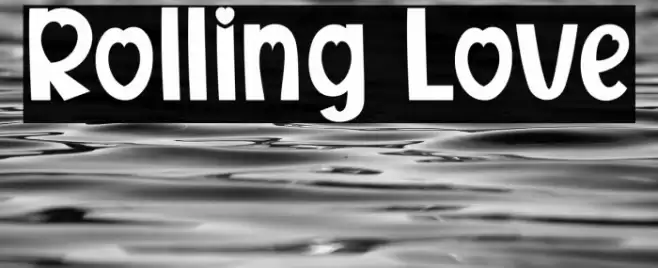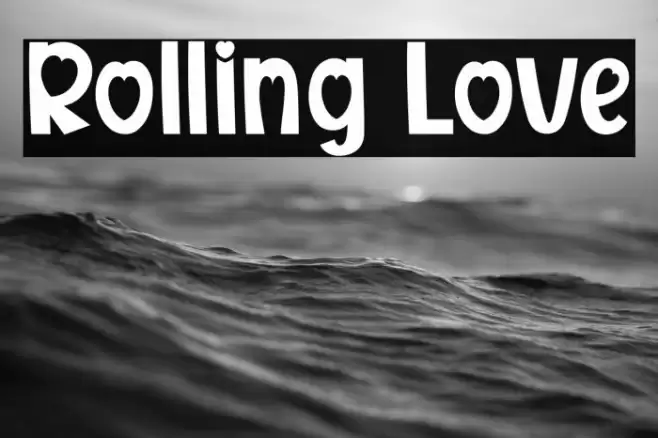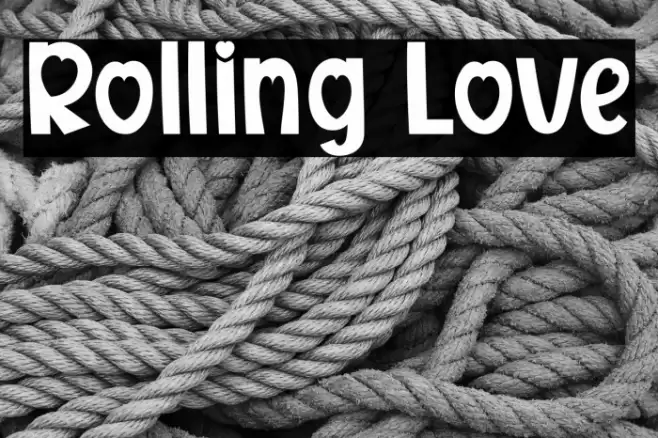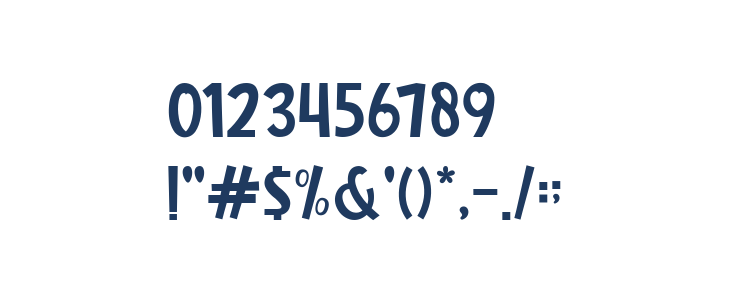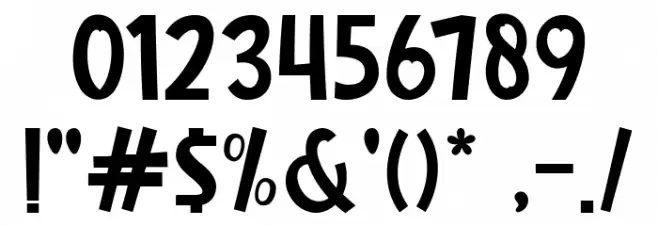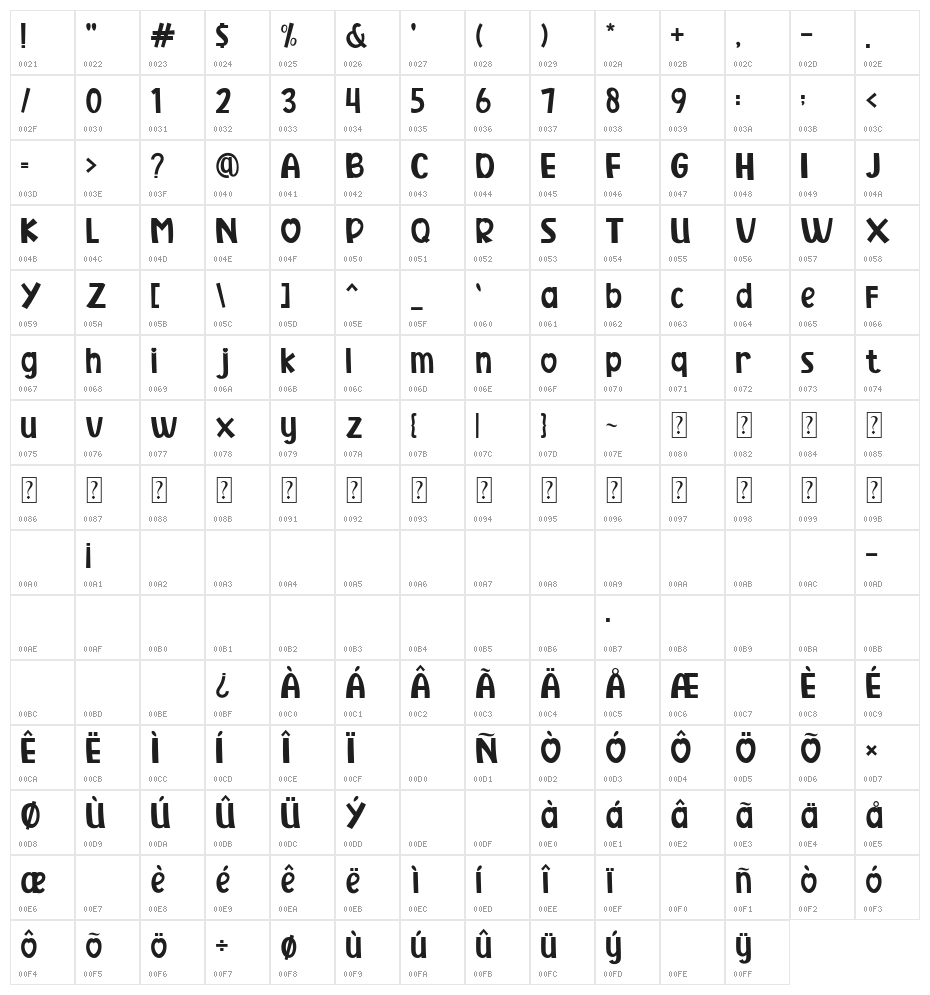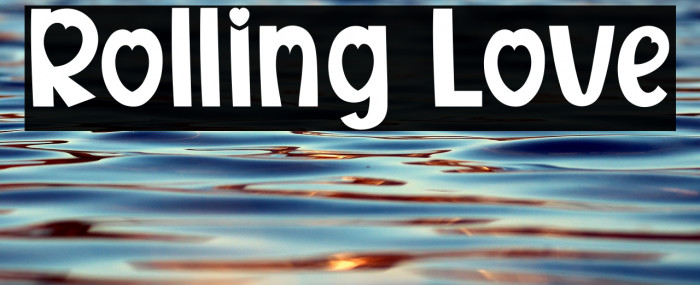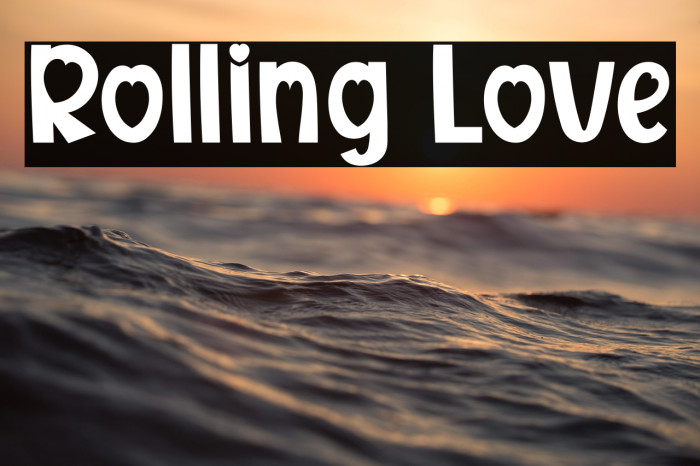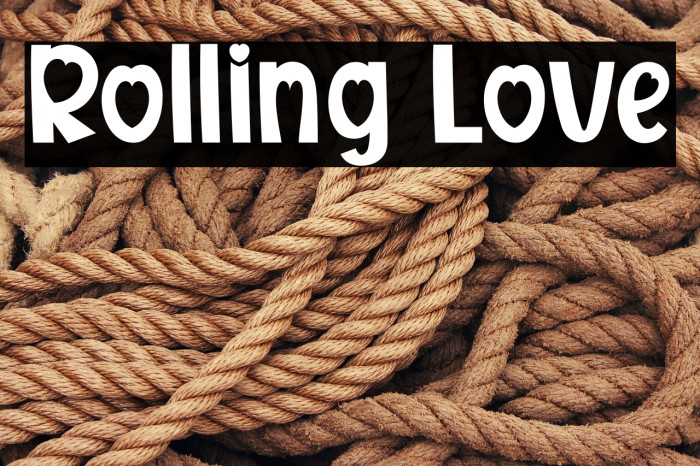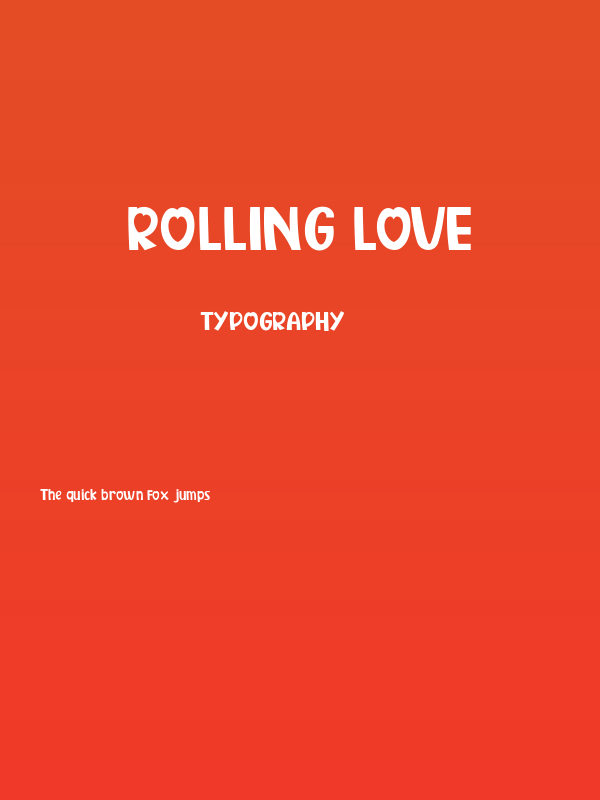
Rolling Love Font
Rolling Love Description
This playful and quirky font features bold, rounded characters with a whimsical touch. The uppercase letters are slightly wider, giving them a strong presence, while the lowercase letters maintain a consistent, friendly appearance. The numerals and special characters are designed to complement the overall style, with a unique flair that adds personality. The font's design is characterized by its smooth curves and slightly irregular shapes, which contribute to its informal and approachable feel. It's perfect for projects that require a fun and engaging look.
A playful, bold font with rounded, whimsical characters from Regular fonts.
- Proposed Projects: Ideal for children's books, playful branding, greeting cards, and casual event invitations.
- Overall Style: Playful